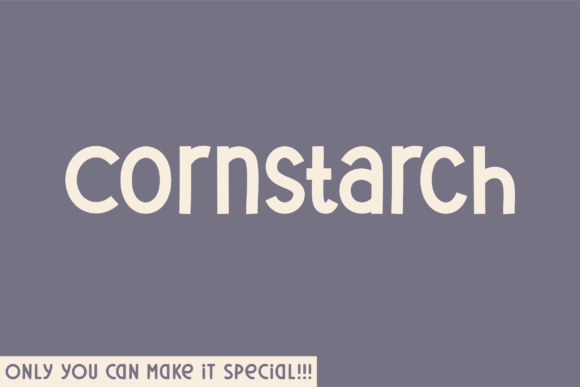
The Perfect Blend of Creativity and Simplicity
As designers, we’ve all been there – staring at a blank canvas, waiting for inspiration to strike. The blank page can be a daunting sight, but it’s in these moments that we discover the beauty of simplicity. For me, that moment came when I stumbled upon the Cornstarch Font – a natural sans serif font that has since become a staple in my design arsenal.
Crafted with precision and care, the Cornstarch Font is a unique creation that brings a touch of elegance to any project. Its clean lines and minimalistic design make it perfect for quotes, notes, tees, and any product design that requires a subtle yet impactful look. What sets it apart is its organic feel, achieved without altering a single node in each character’s indentation – a testament to the designer’s dedication to preserving the natural essence of the font.
For designers, the Cornstarch Font is a valuable addition to any toolkit. Its versatility and timeless appeal make it an excellent choice for projects that demand a balance of simplicity and sophistication.
Cornstarch Font Key Features
- Font Family: Cornstarch is a sans-serif font family designed by Alex Riegelsberger.
- Character Count: The font family includes a wide range of characters, including Latin, Greek, and Cyrillic alphabets, as well as punctuation and symbols.
- Unique Characteristics: Cornstarch Font is known for its clean, modern design and versatility, making it suitable for a wide range of applications, including digital and print media, branding, and packaging.
Cornstarch Font Review
I recently had the chance to experiment with the Cornstarch Font, and I must say it’s a mixed bag. On the positive side, ✨ I appreciate its quirky, hand-drawn feel that adds a touch of personality to digital designs. The font’s irregularities make it perfect for creative projects that need a bit of whimsy.
- ✨ Unique aesthetic that sets it apart from more generic fonts
- ✨ Great for projects that require a playful, handcrafted look
- ✨ Supports a wide range of languages, making it a viable option for global designs
However, ⚠️ there are some limitations to consider. The Cornstarch Font can be quite challenging to read at small font sizes, which may be a concern for designs that require a high level of legibility. Additionally, the font’s irregularities can sometimes make it difficult to achieve precise typography.
- ⚠️ May struggle with readability at small font sizes
- ⚠️ Can be tricky to achieve precise typography due to its hand-drawn nature
Overall, I think the Cornstarch Font is a solid choice for designers looking to add some personality to their projects. While it may not be suitable for every design, it’s a great option for those who want to inject a bit of whimsy into their work.
Cornstarch font is often used for creative and artistic purposes, such as:
- Designing invitations and wedding stationery.
- Creating custom graphics and illustrations.
- Adding a touch of whimsy and personality to your branding.
Unique Creations with Cornstarch Font
Cornstarch Typography Art
Cornstarch Font is a creative medium that combines art and science. This project involves using the Cornstarch Font to create intricate and detailed typography art.
Cornstarch Font Jewelry
This project involves using the Cornstarch Font to create unique and delicate jewelry pieces.